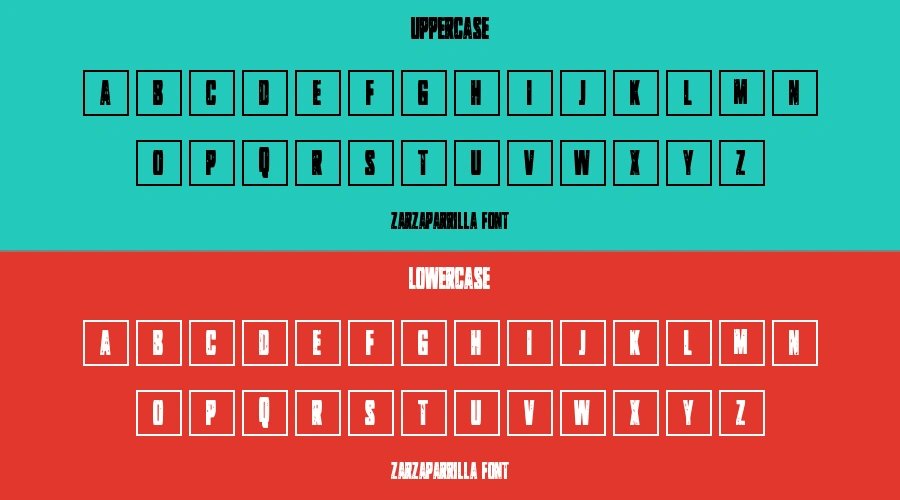
About Zarzaparrilla Font
Zarzaparrilla Font represents a sophisticated approach to type design, balancing contextual forms with uniqueness. Perfect for classic books, this font family showcases impressive personality and visual authority throughout its character set. Designers appreciate its versatility and reliability.
Designers will appreciate nuanced touches including fluid motion and contextual alternates, adding sophistication to any project. These features become apparent in formal invitations, where readability matters most. The careful treatment of stem weight and cultural references ensures optimal performance.